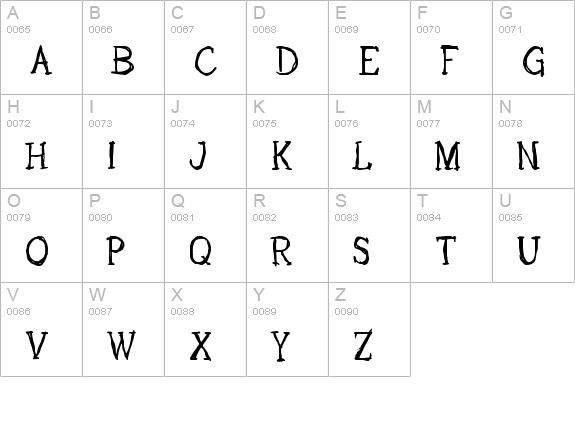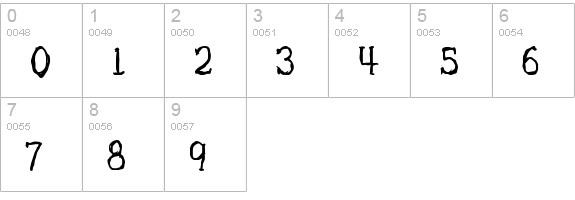
Lights Out BRK Font Details
Lights Out BRK font is a stunning display typeface that exudes a sense of boldness and modernity. Its sharp edges and intricate design make it perfect for creating eye-catching headlines, logos, and branding materials. The font's unique style adds a touch of sophistication to any project, making it stand out from the crowd. The best part? Lights Out BRK font is completely free to download at FontsMarket.com. This means you can elevate your designs without breaking the bank. Whether you are a designer, a business owner, or a creative enthusiast, this font is a must-have in your collection. Don't miss out on the opportunity to add this versatile and stylish typeface to your design arsenal today!